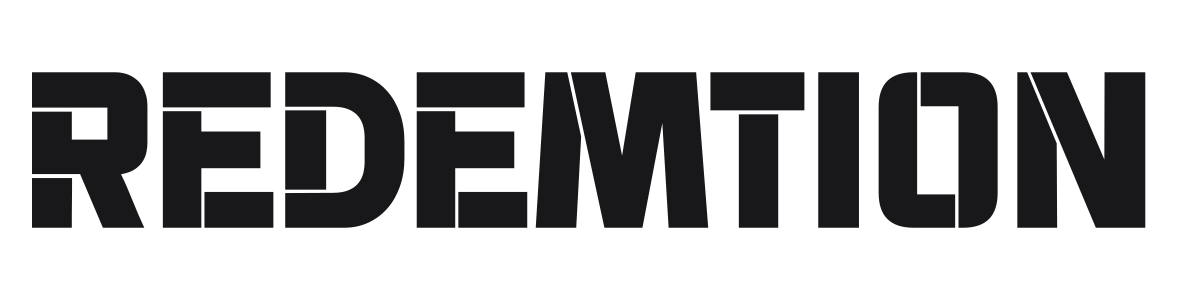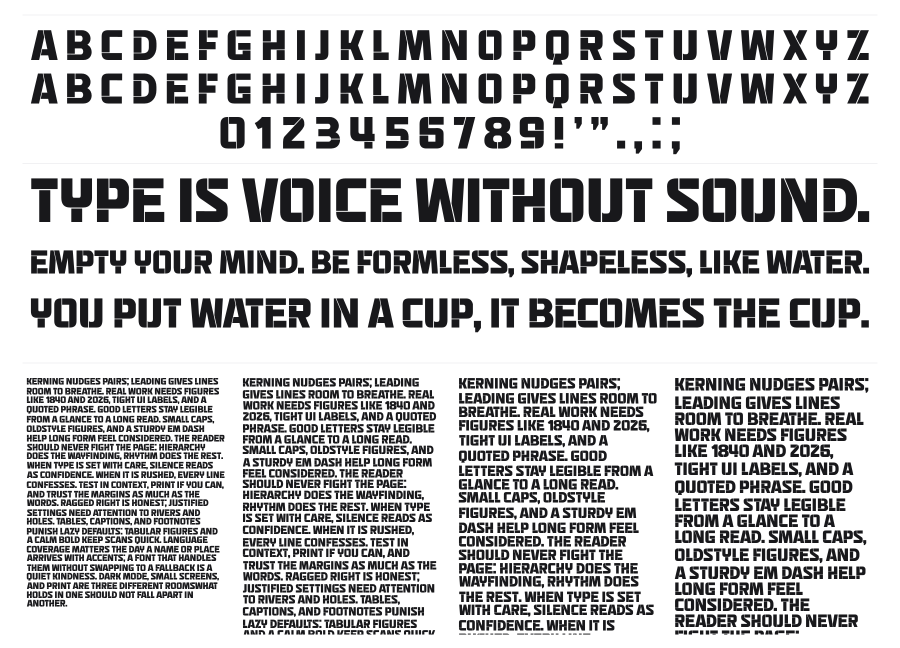
Redemtion
Redemtion is a bold condensed stencil sans with a hard military edge. Deliberate cuts slice through each character, giving it the look of spray-painted industrial signage or military equipment markings. It hits hardest at large sizes, where those stencil breaks become the defining feature.